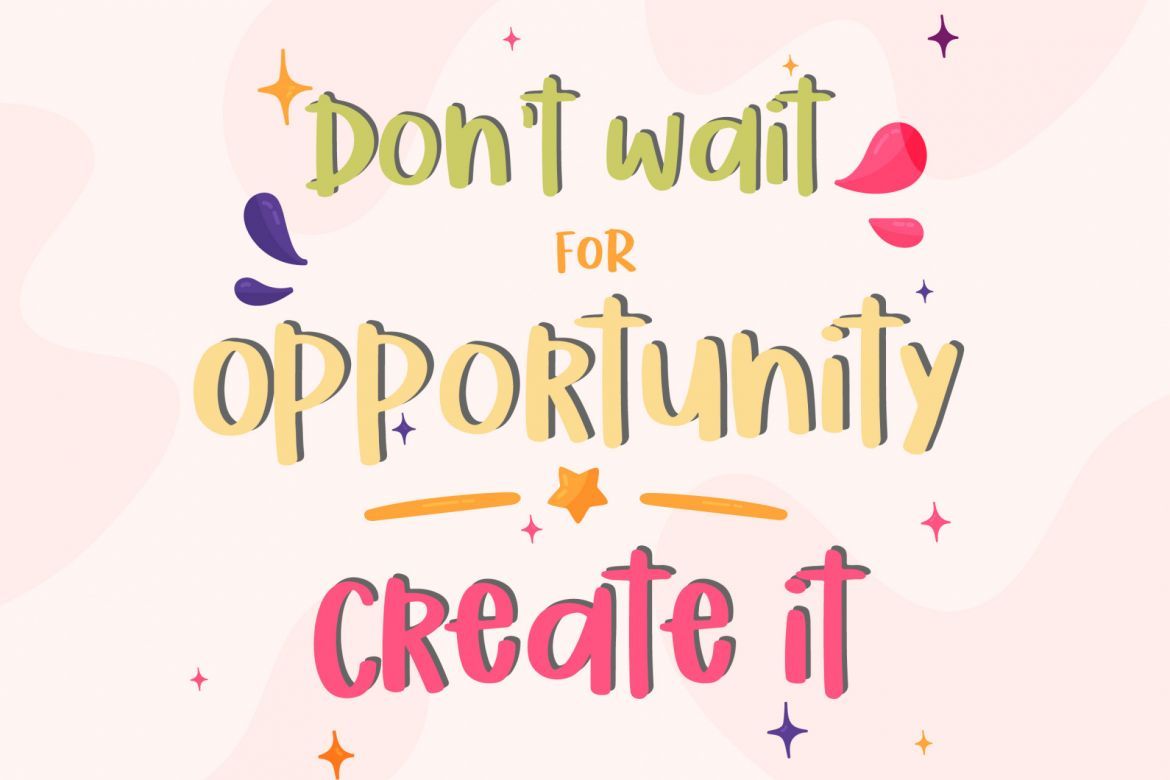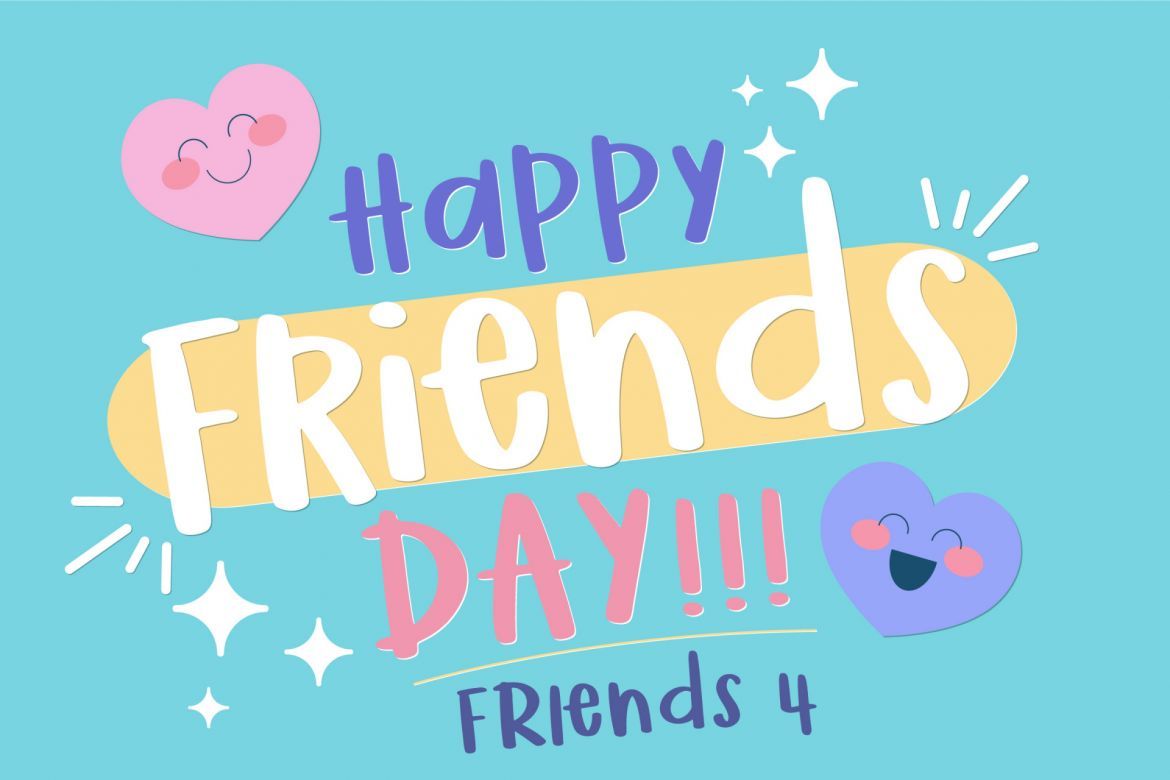
Mirabelle Handwritten Font
Mirabelle is a chunky, spunky handwritten font. This handwritten is perfect for layering and adding life to your design! This font for a logo, birthday invitation, friendly party, fun design, book cover, kids clothing, outbound poster, and others.
• a chunky, spunky handwritten font
• perfect for layering and adding life to your design! logo, birthday invitation, friendly party, fun design,